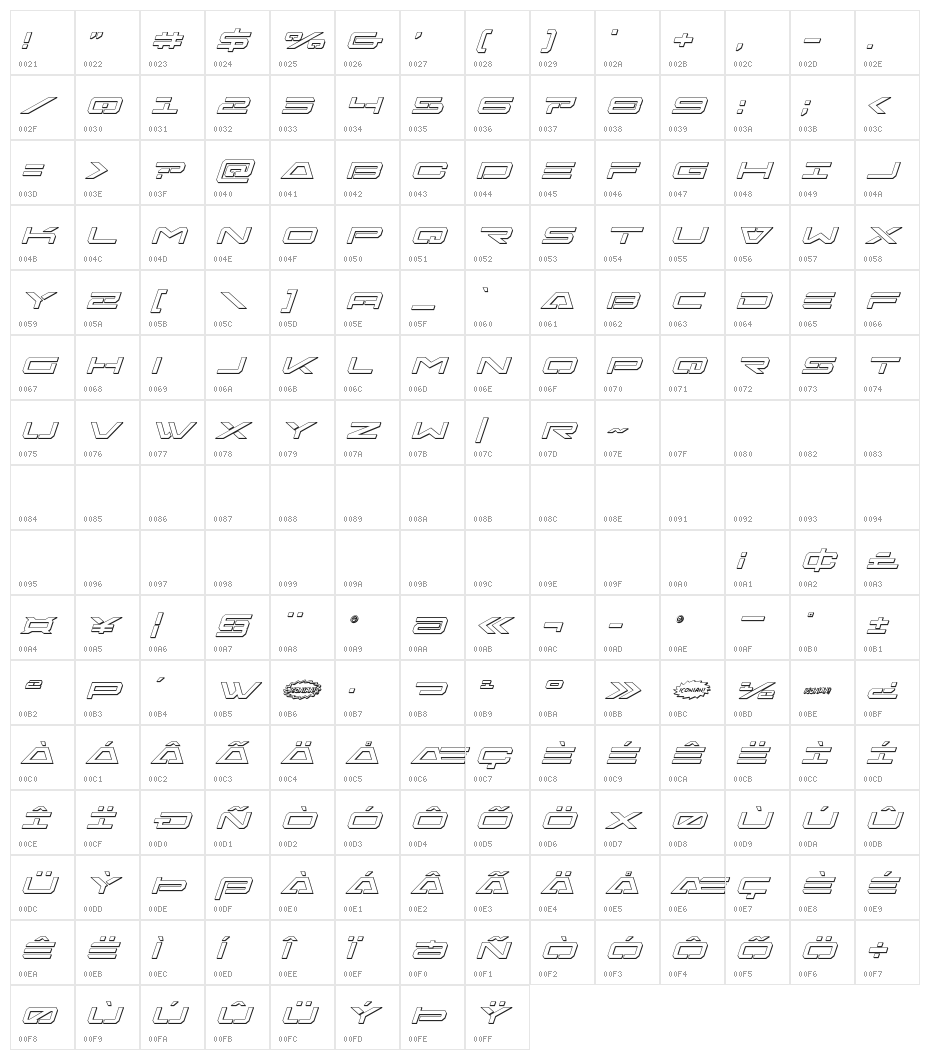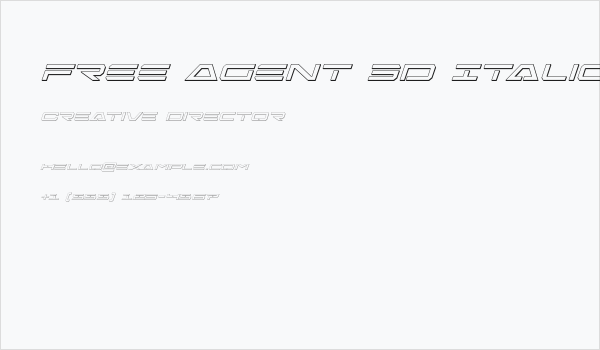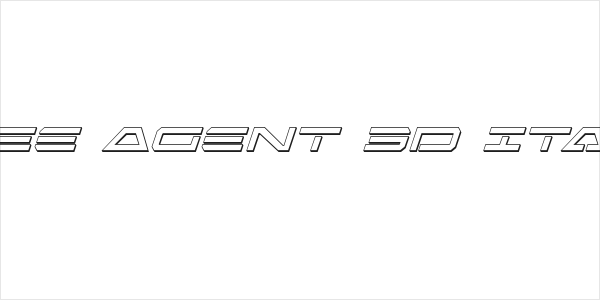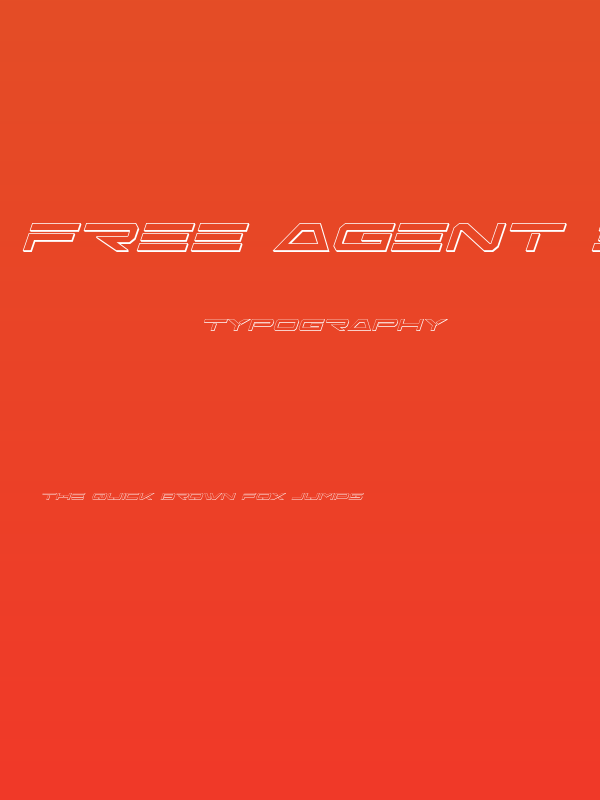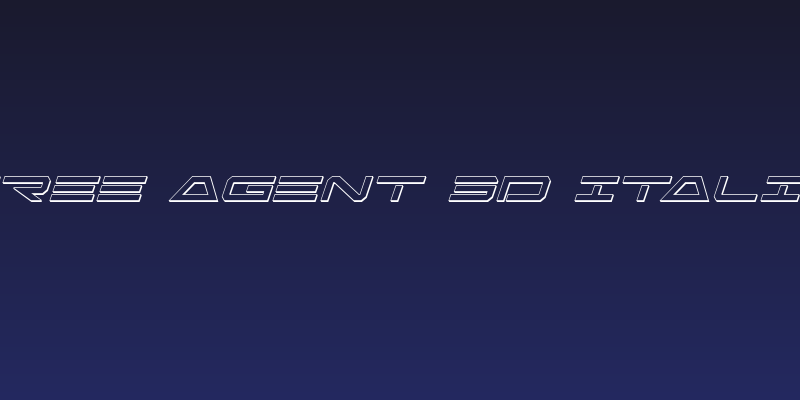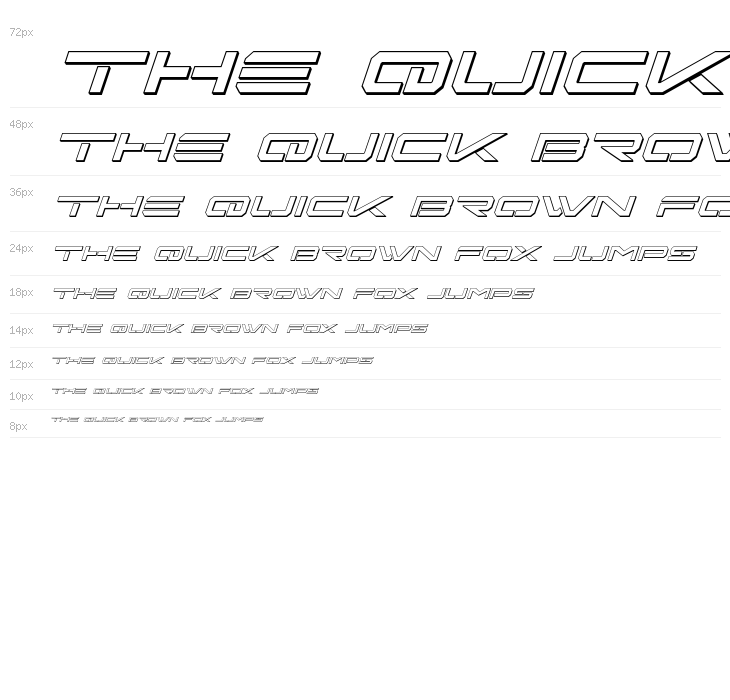
Free Agent 3D Italic Font
Free Agent 3D Italic Description
This font features a dynamic and futuristic design with a 3D effect, characterized by its angular and geometric letterforms. Each character is outlined, creating a hollow appearance that enhances its modern and tech-inspired aesthetic. The italic slant adds a sense of motion and speed, making it ideal for projects that require a contemporary and energetic vibe. The uppercase and lowercase letters maintain a consistent style, while the numerals and special characters complement the overall design with their unique and cohesive look.